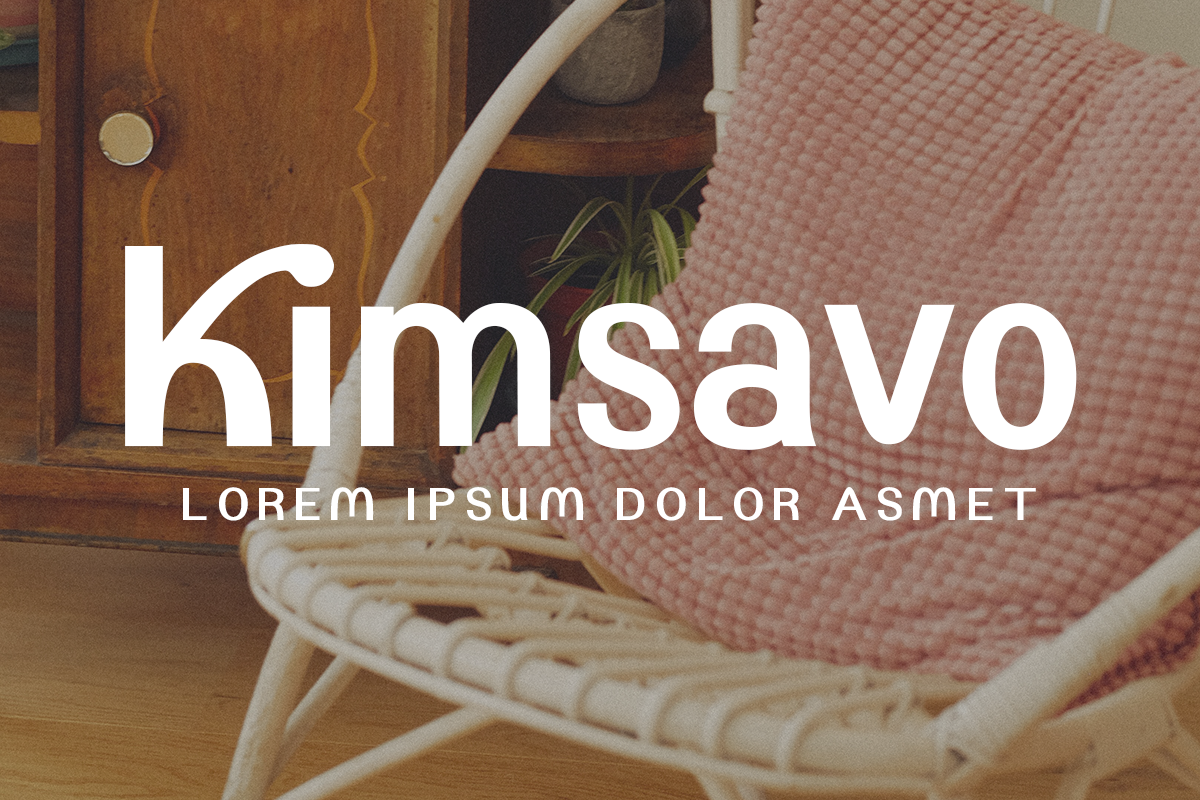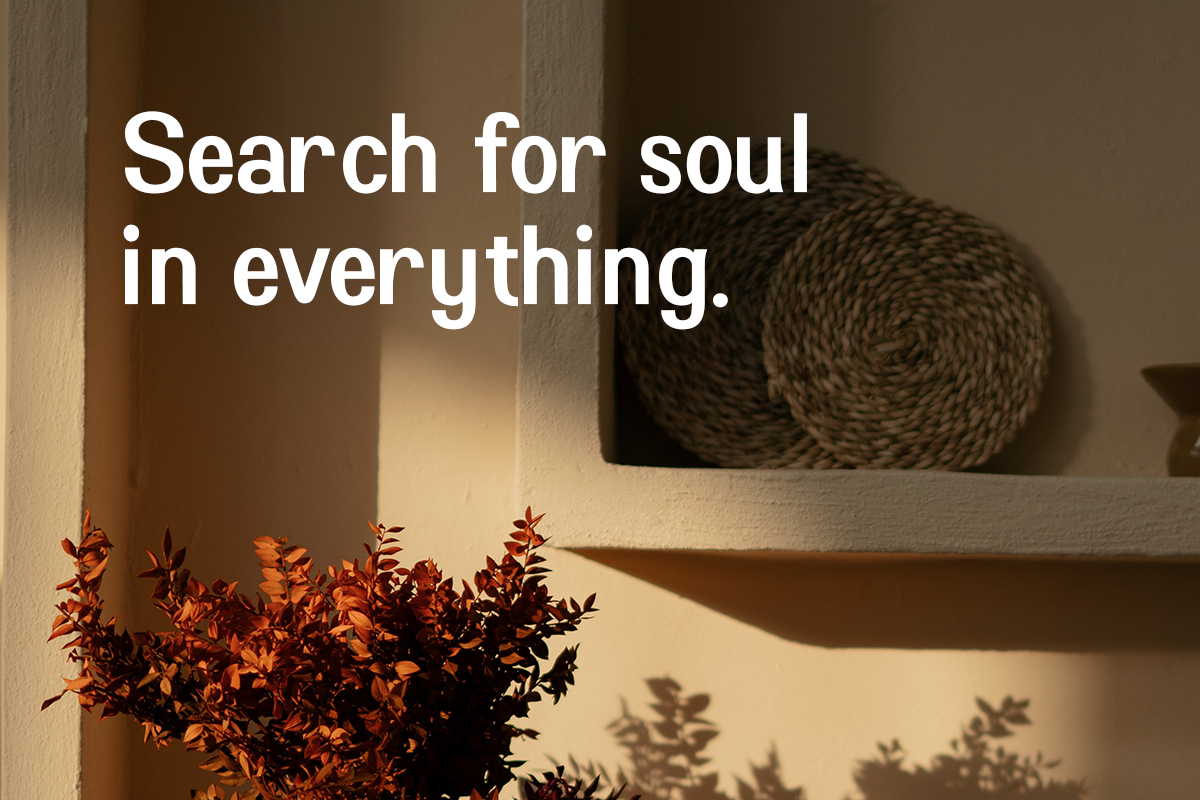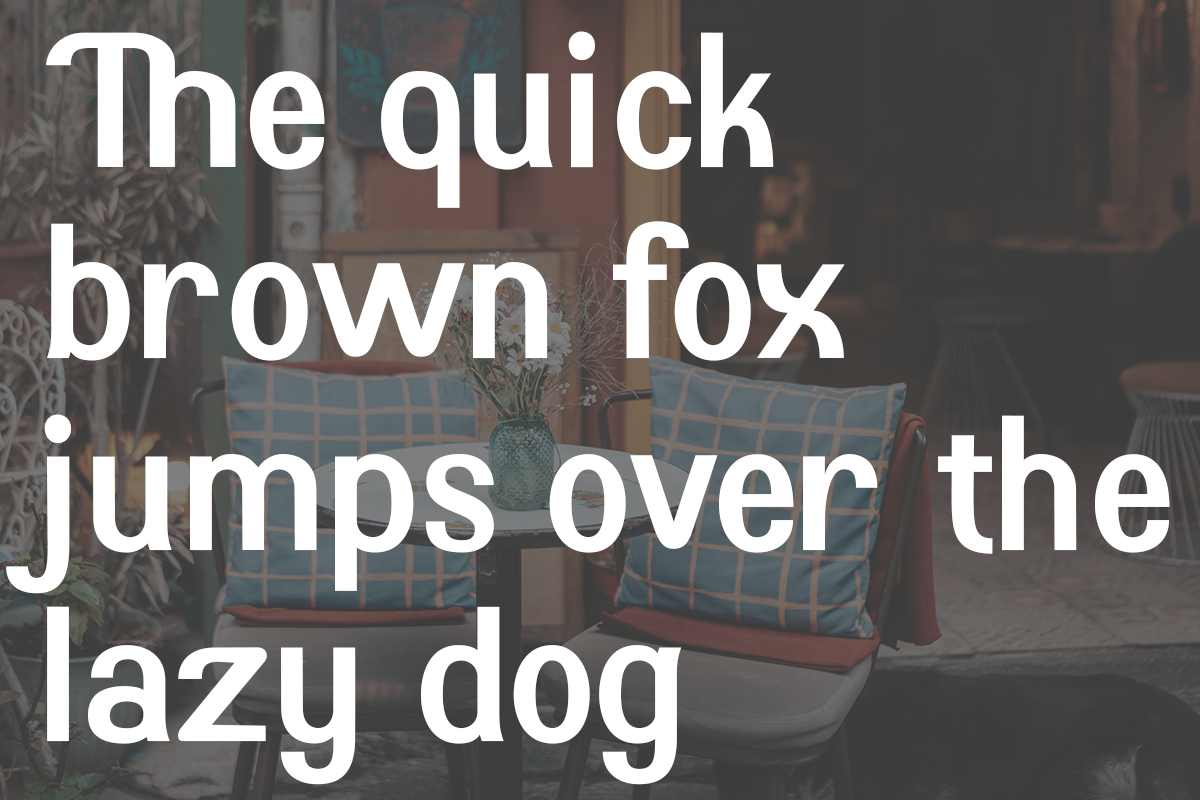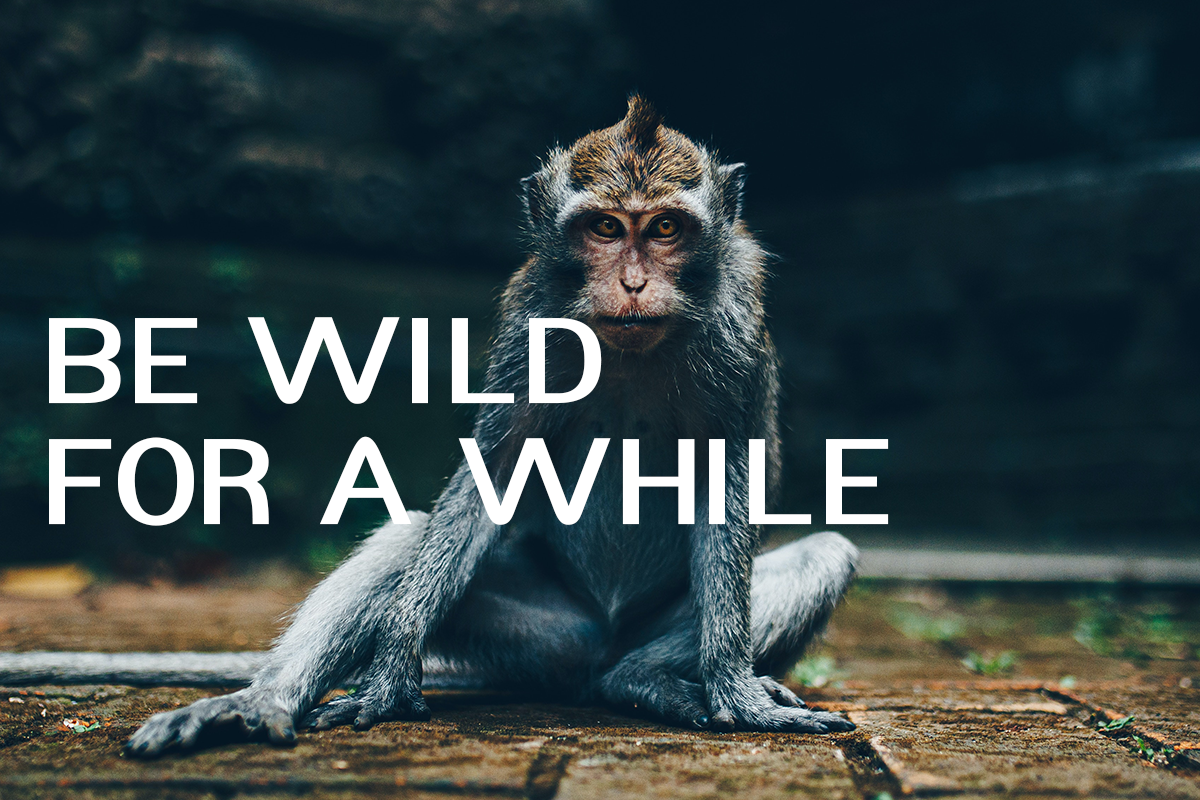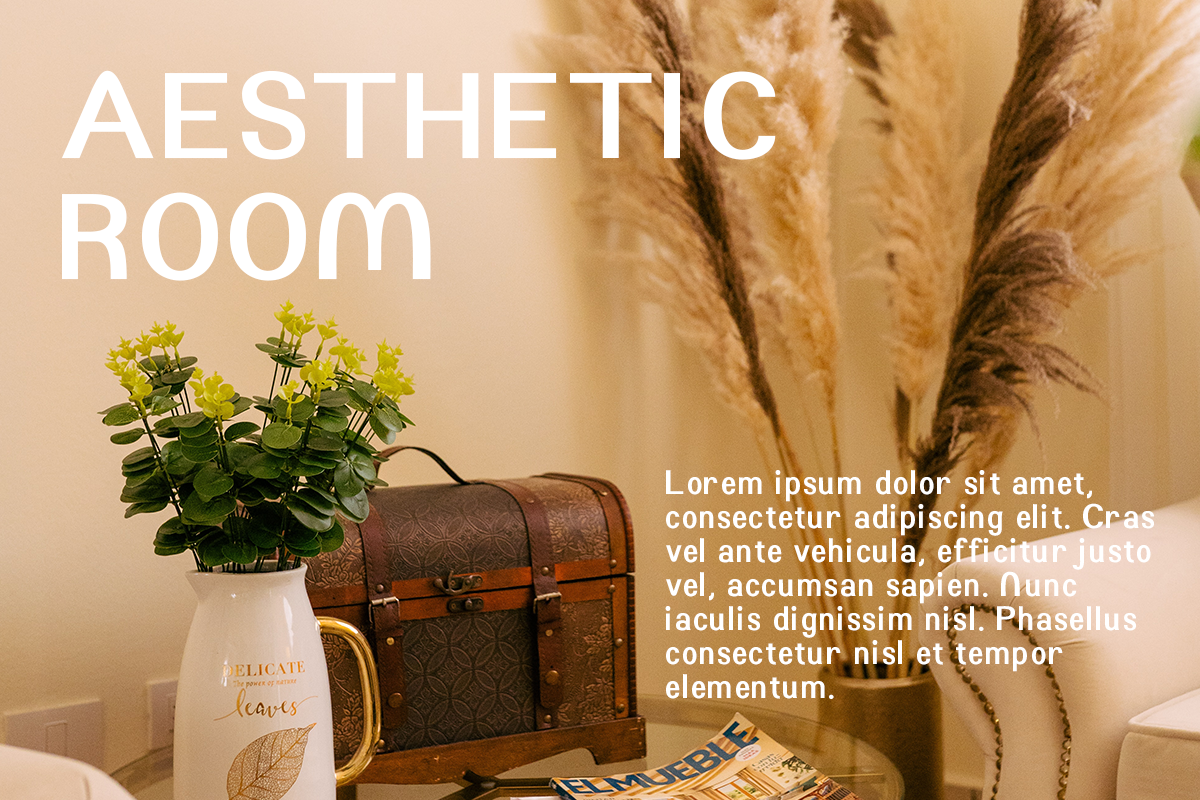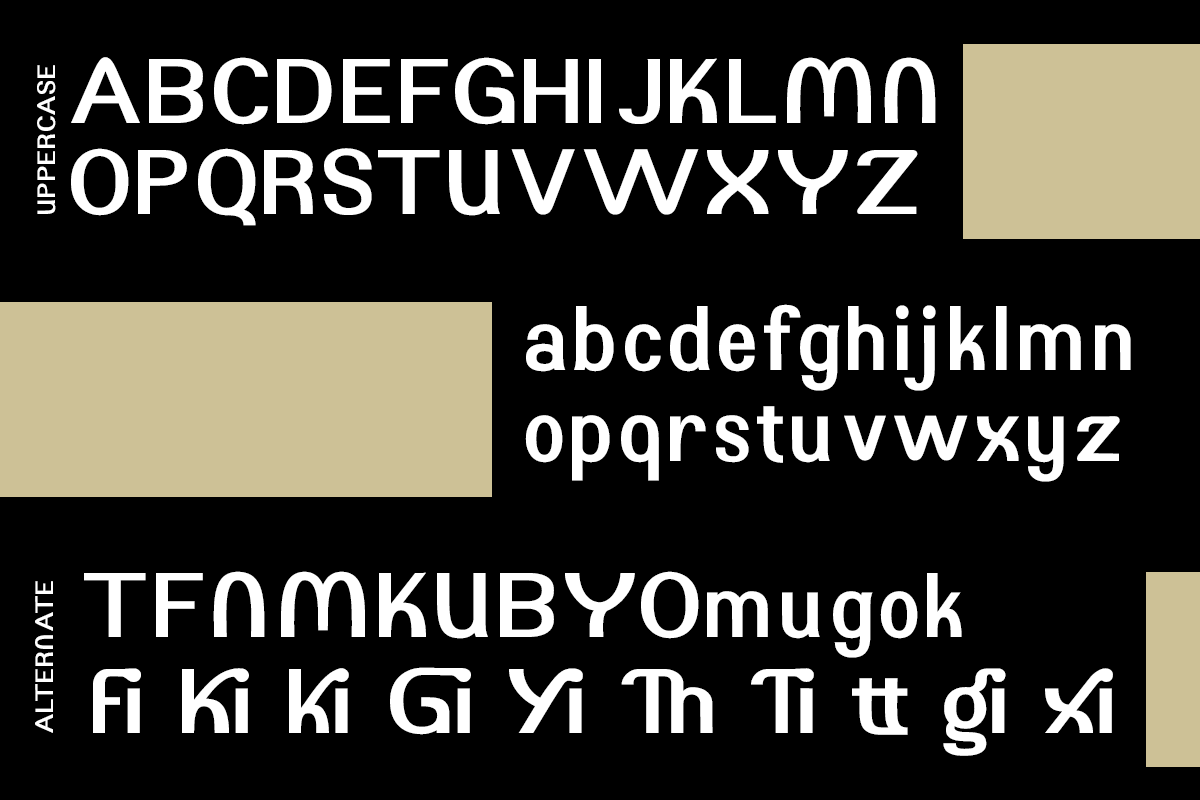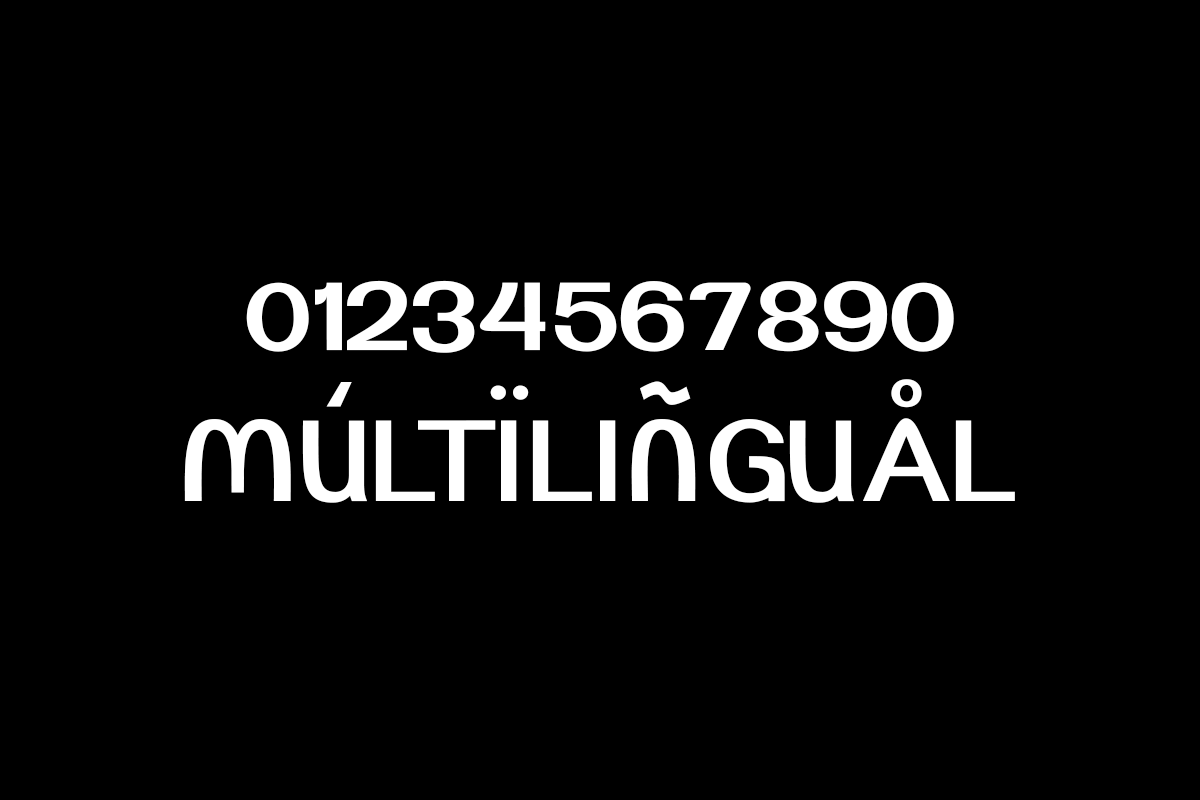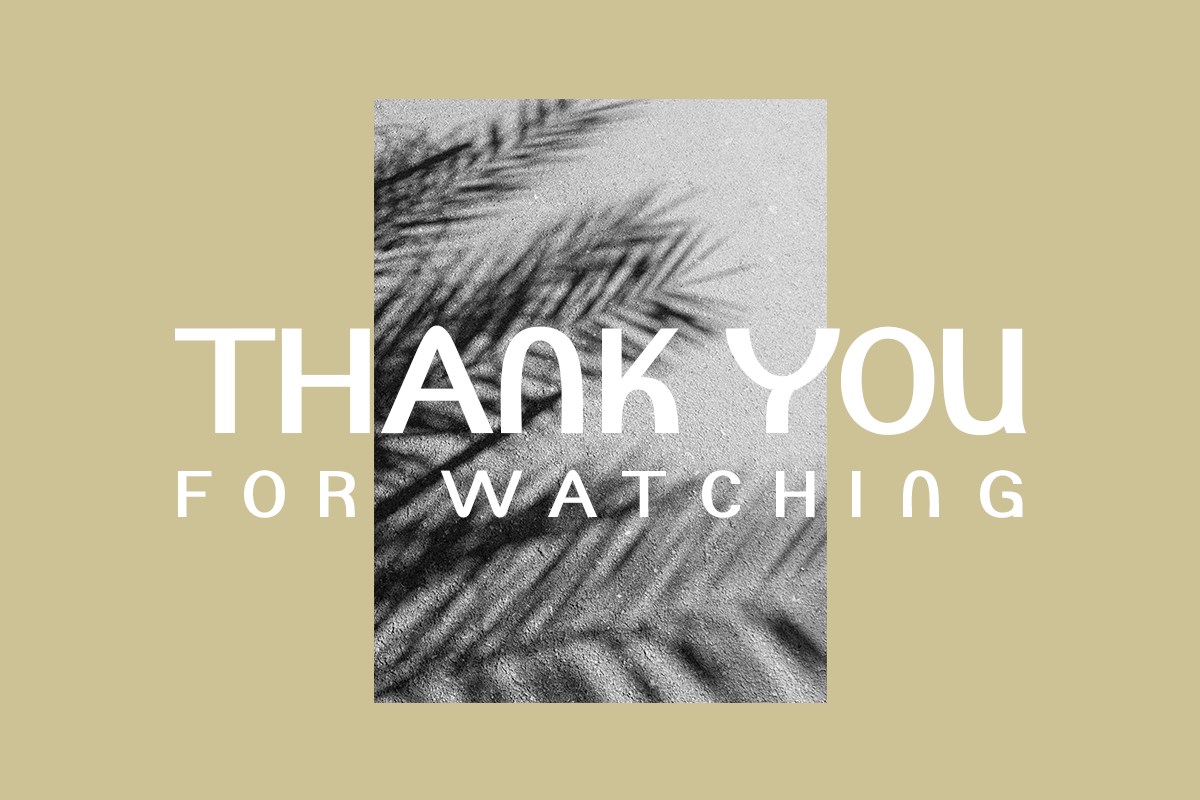
Clavoe Modern Sans Serif Font is one of our Sans Serif fonts. If you want a sans-serif font that is readable and easy to work with, you should consider choosing a Clavoe Modern Sans Serif Font for your project. Clavoe Modern Sans Serif Font is a clean and simple font with a very minimalistic style. This font is a modern, bold font. You can use this font as a digital and print font, such as for magazines, posters, and flyers. You can also use Clavoe Modern Sans Serif Font for branding purposes, such as creating logos or taglines for brands, brand packaging, and advertising. Some examples of products include; business cards, invitations, and placemarks. Make sure the font size must be considered in its application. Clavoe Modern Sans Serif Font gives a simple and elegant impression when you look at it. No doubt this font is suitable for various social media platforms. Our Sans Serif font collection is compatible to use as; Figma fonts, Canva fonts, Freepik Fonts, and Adobe Fonts. They also work as Windows Fonts and Apple Fonts. For your social media needs, you can use and install fonts in our Sans Serif font collection to use as Instagram Fonts, Facebook Fonts, and Twitter Fonts.